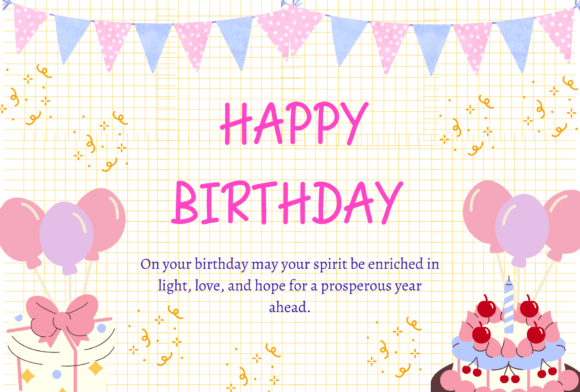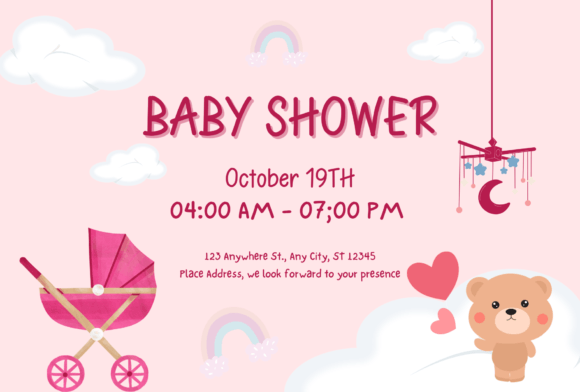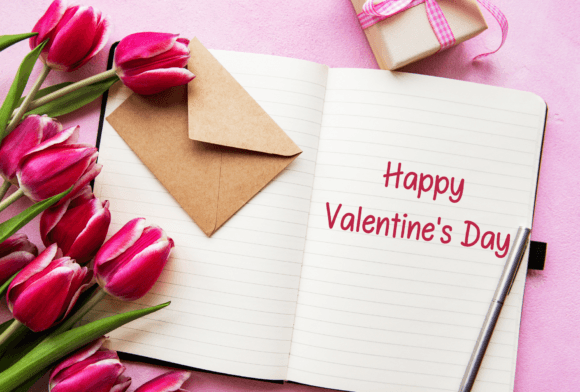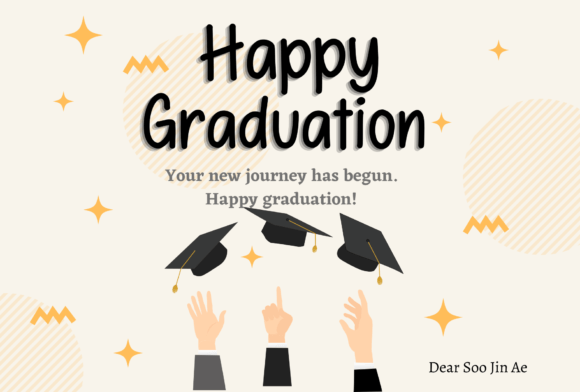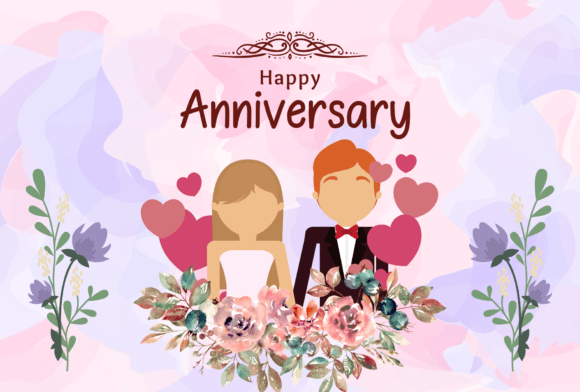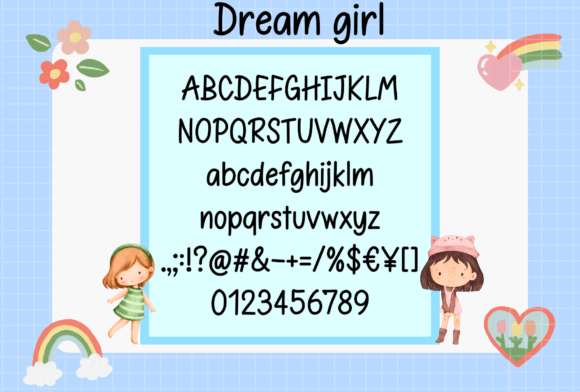
Dream Girl Font: The Perfect Addition to Your Design Arsenal
Are you a designer or crafter looking for a font that can add a touch of whimsy and playfulness to your projects? Look no further than the Dream Girl font! This adorable handwritten font is perfect for creating a wide range of designs, from greeting cards to products such as t-shirts, mugs, and keychains.
What is Dream Girl Font?
Dream Girl font is a cute and playful handwritten font that is sure to capture the hearts of your audience. Its unique and charming style makes it perfect for a variety of design projects, including:
- Birthday cards
- Anniversary cards
- Valentine’s Day cards
- Christmas cards
- Mother’s Day cards
But that’s not all! Dream Girl font can also be used to create a wide range of products, such as:
- T-shirts
- Mugs
- Keychains
- Pillows
- Planners
- Stickers
Why Choose Dream Girl Font?
So, why choose Dream Girl font for your design projects? Here are just a few reasons:
- Unique and eye-catching: Dream Girl font has a unique and eye-catching style that is sure to grab the attention of your audience.
- Playful and whimsical: This font has a playful and whimsical feel that’s perfect for creating designs that are fun and lighthearted.
- Easy to read: Despite its playful style, Dream Girl font is easy to read, making it perfect for use in a wide range of designs.
- Versatile: This font can be used in a wide range of designs, from greeting cards to products such as t-shirts and mugs.
How to Use Dream Girl Font in Your Designs
Using Dream Girl font in your designs is easy! Here are a few tips to get you started:
- Pair it with other fonts: Dream Girl font looks great when paired with other fonts, such as bold sans-serif fonts or elegant script fonts.
- Experiment with colors: This font looks great in a wide range of colors, from bright and bold to soft and pastel.
- Add embellishments: Consider adding embellishments, such as glitter or flowers, to give your designs an extra touch of whimsy.
- Experiment with different styles: Don’t be afraid to experiment with different styles and techniques, such as adding texture or using different colors.
In conclusion, Dream Girl font is a cute and playful handwritten font that is perfect for a wide range of design projects. Its unique and eye-catching style makes it perfect for creating designs that are fun and lighthearted, while its ease of use and versatility make it a great addition to any design arsenal. Whether you’re a designer or crafter, Dream Girl font is sure to become a favorite in your collection.